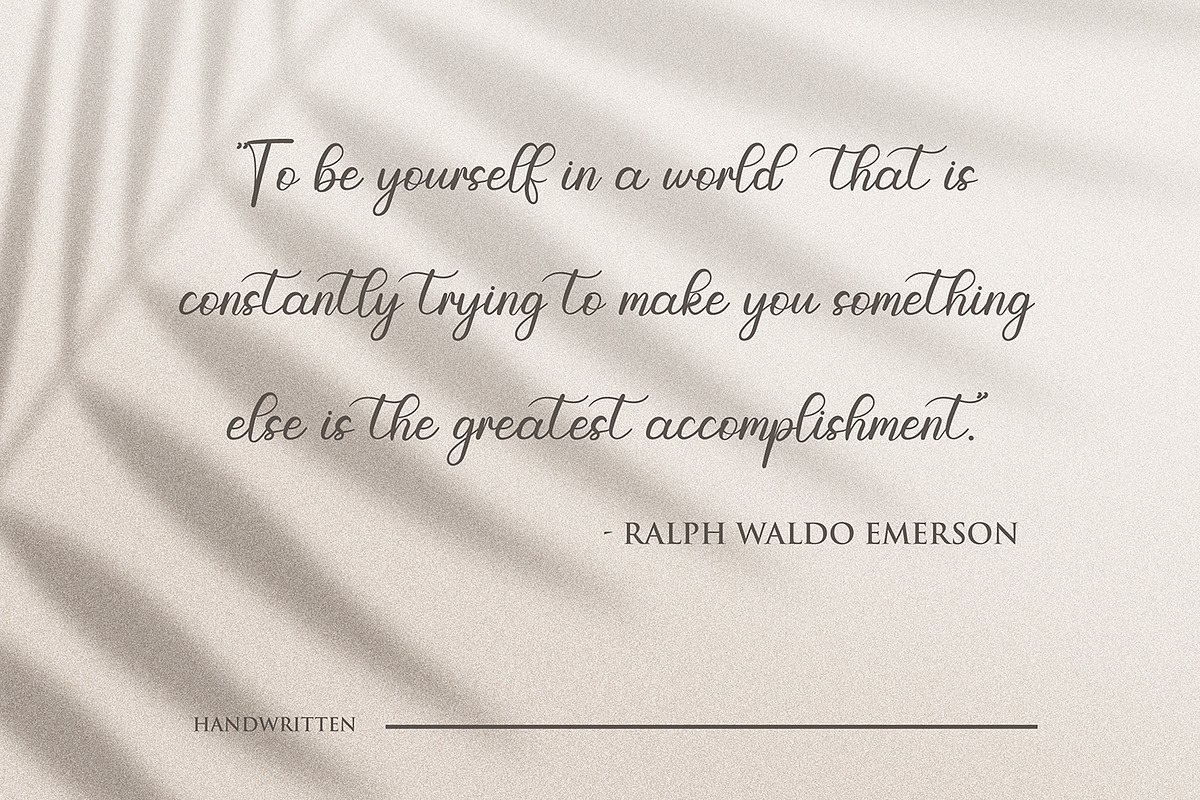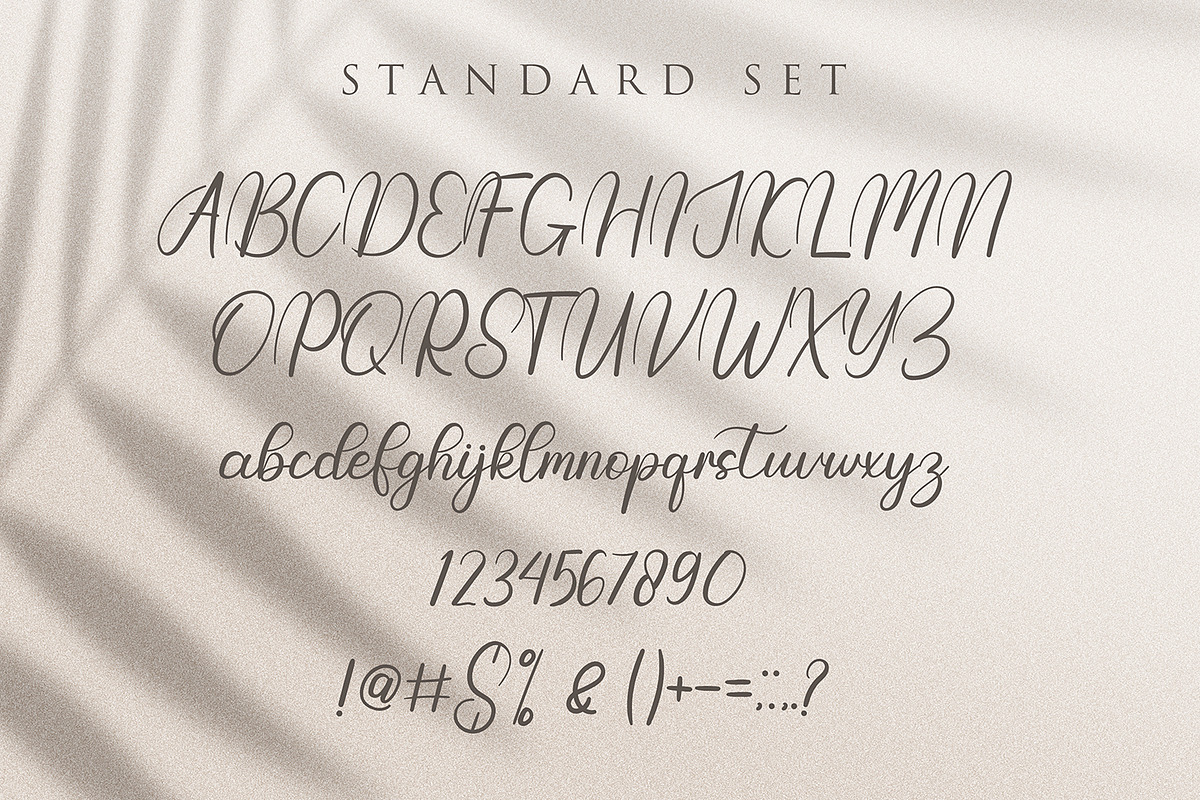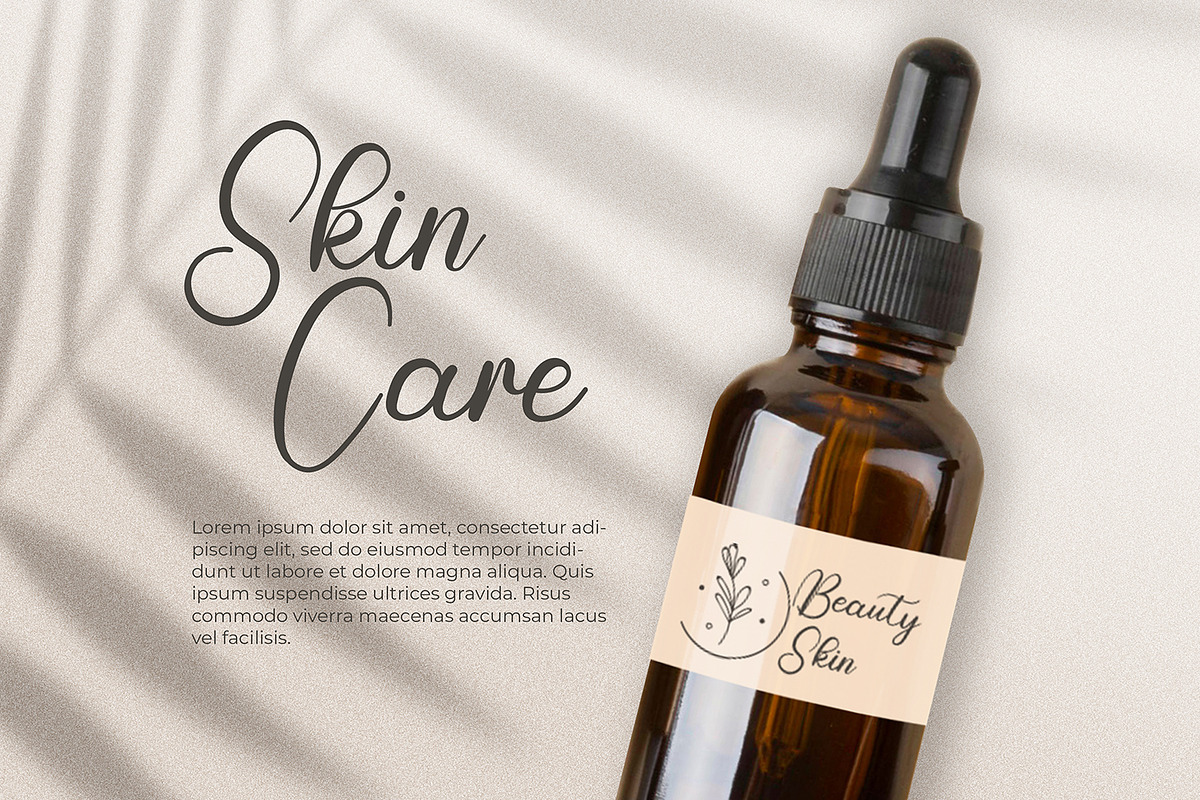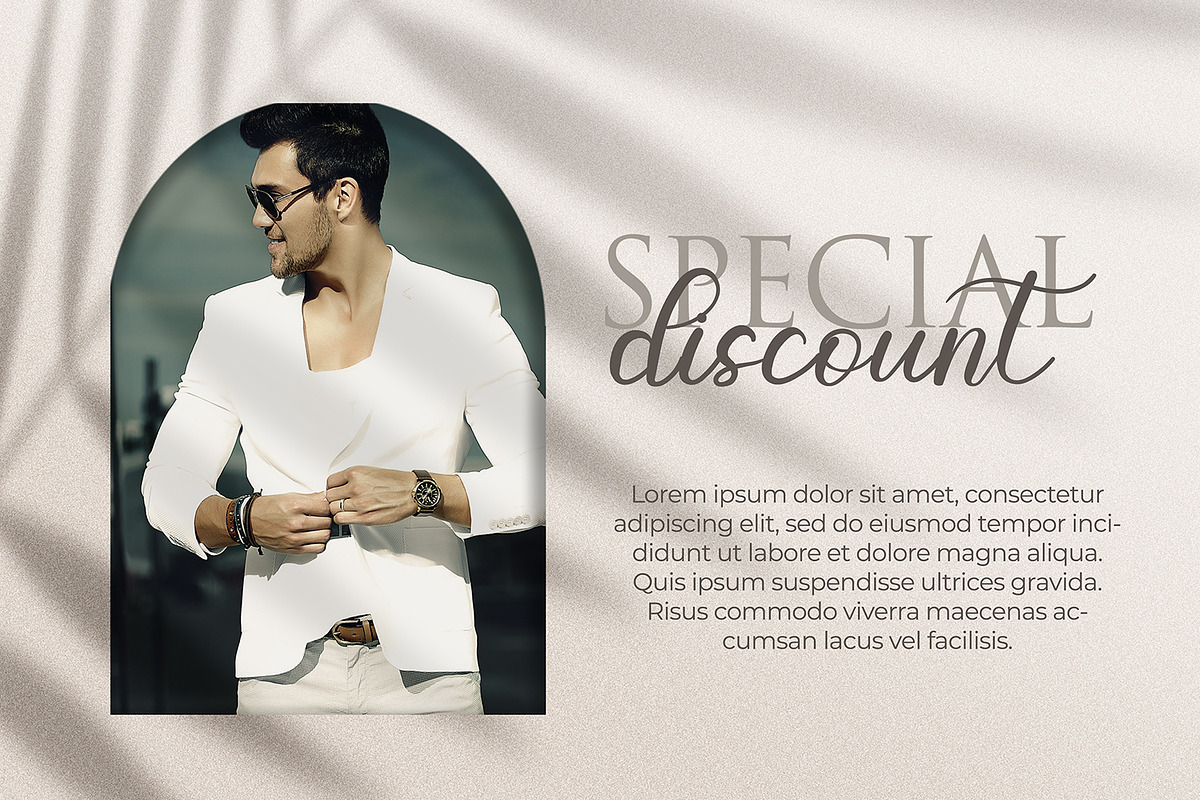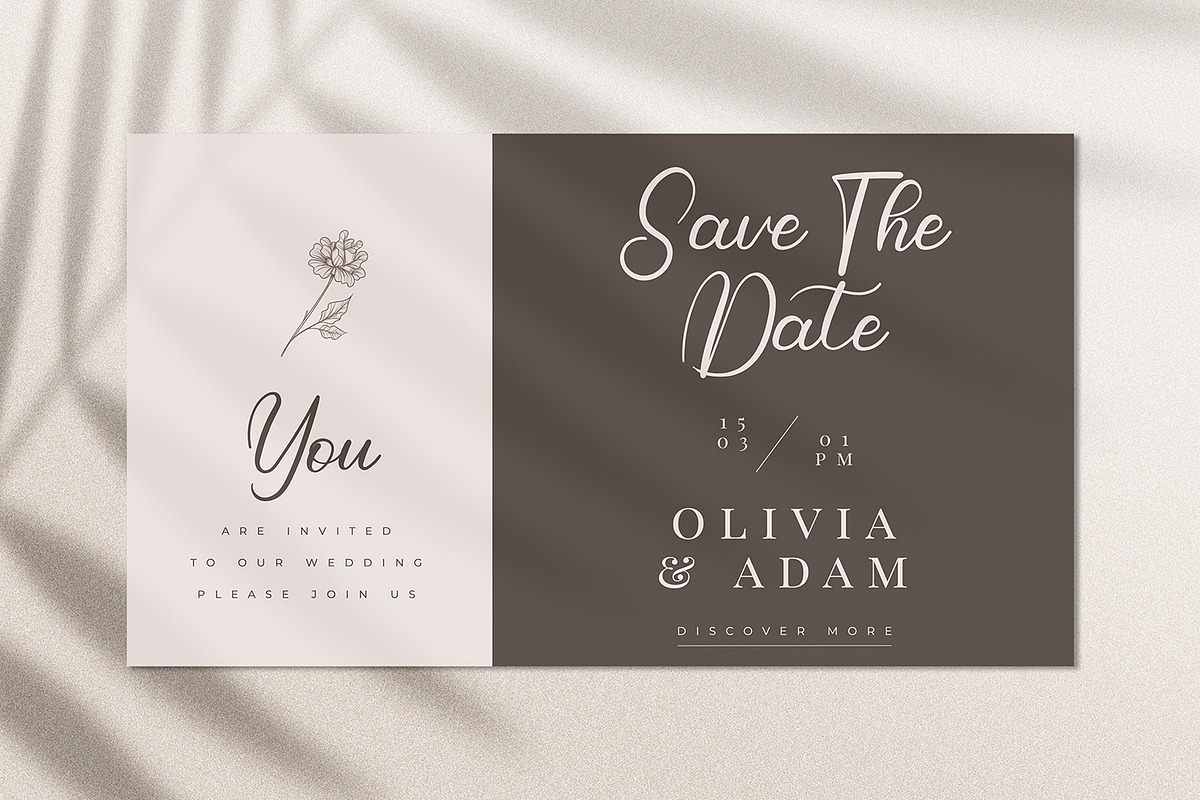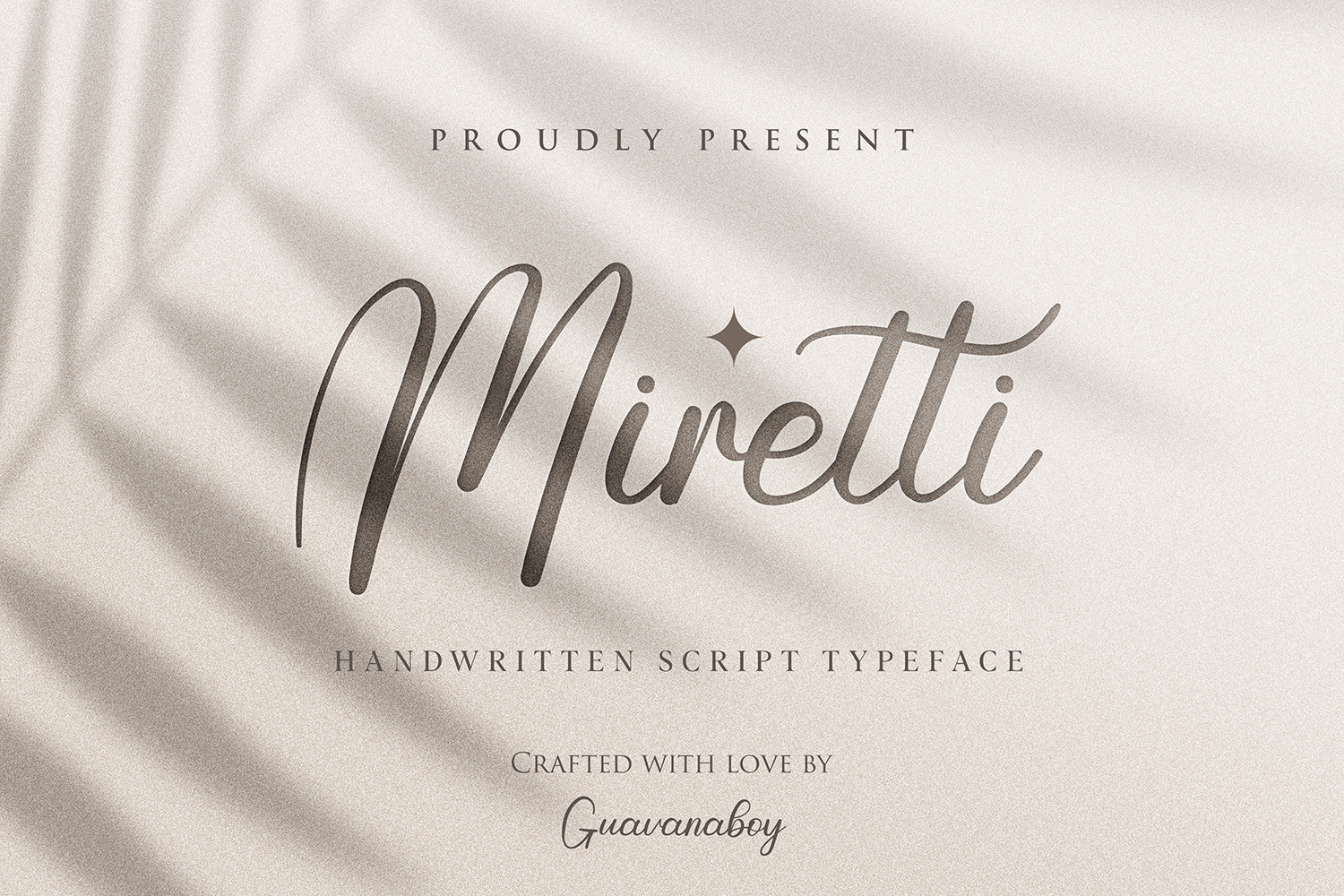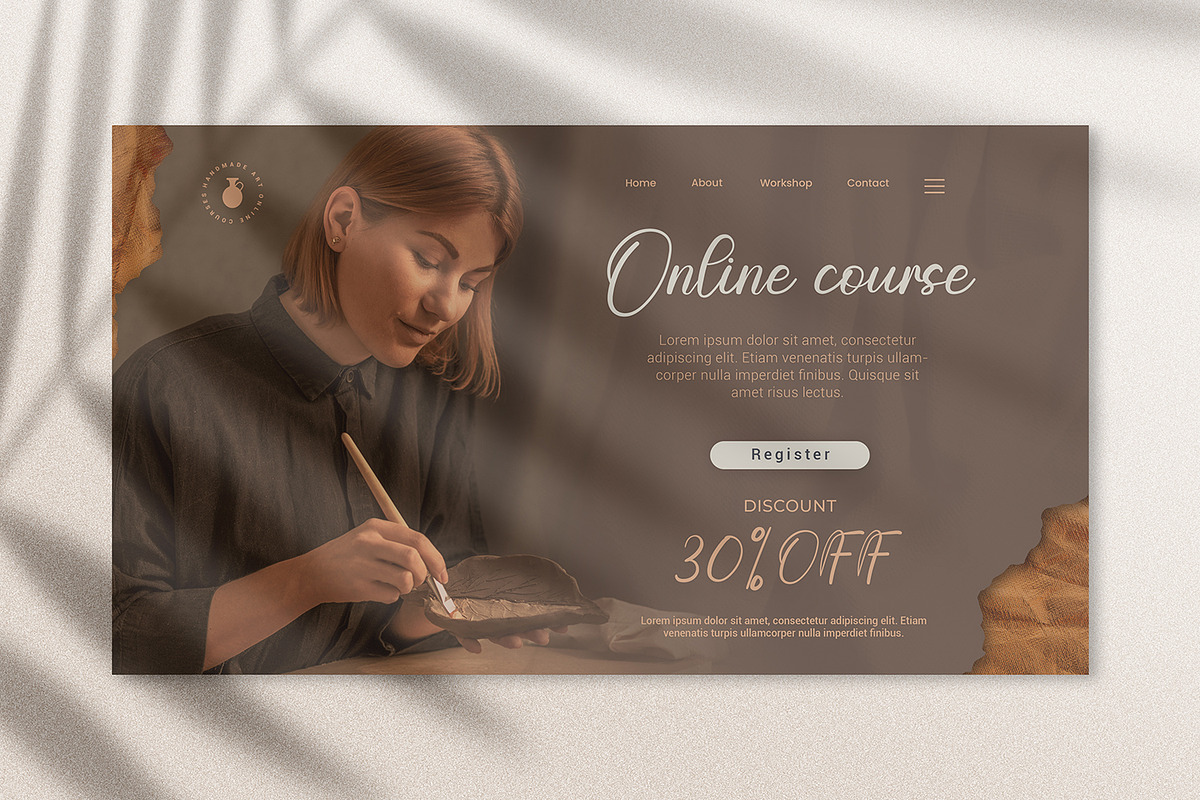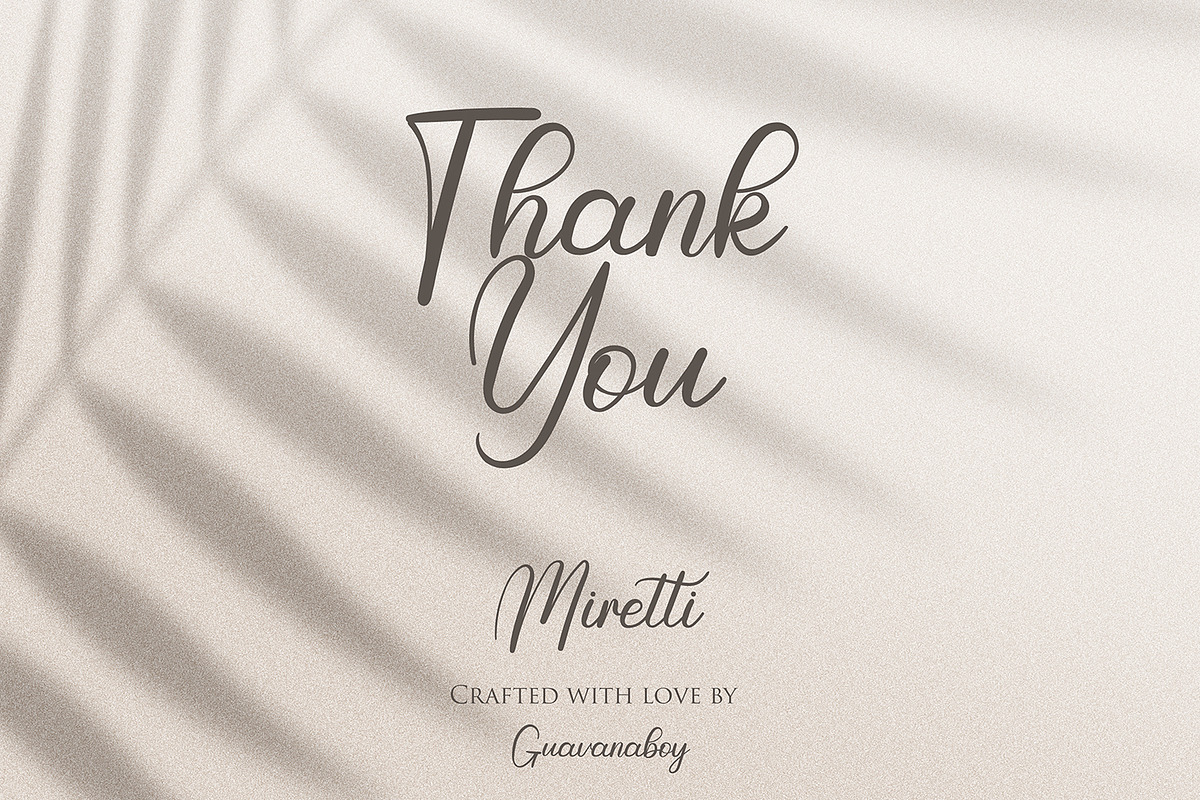
Miretti - Aesthetic Handwritten Font
Miretti Font - A Signature handwritten script font - by Guavanaboy.
Perfect for : Social media, Advertisement, Instagram, Logos, branding, wedding invitations, Canva, signs, crafting, mugs, shirts, labels, stickers, business cards, greeting cards, posters, social media, planner prints, and websites.
- Elegant handwritten style font - Very easy to use in any software Files